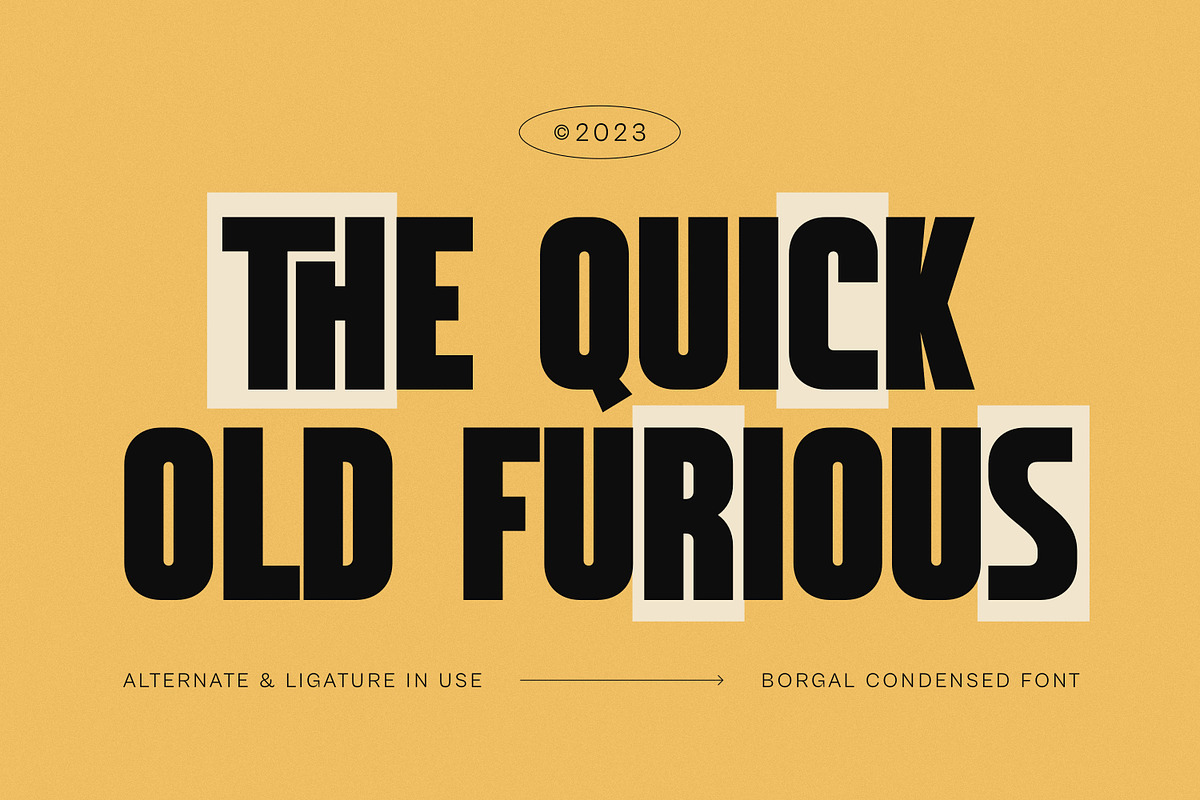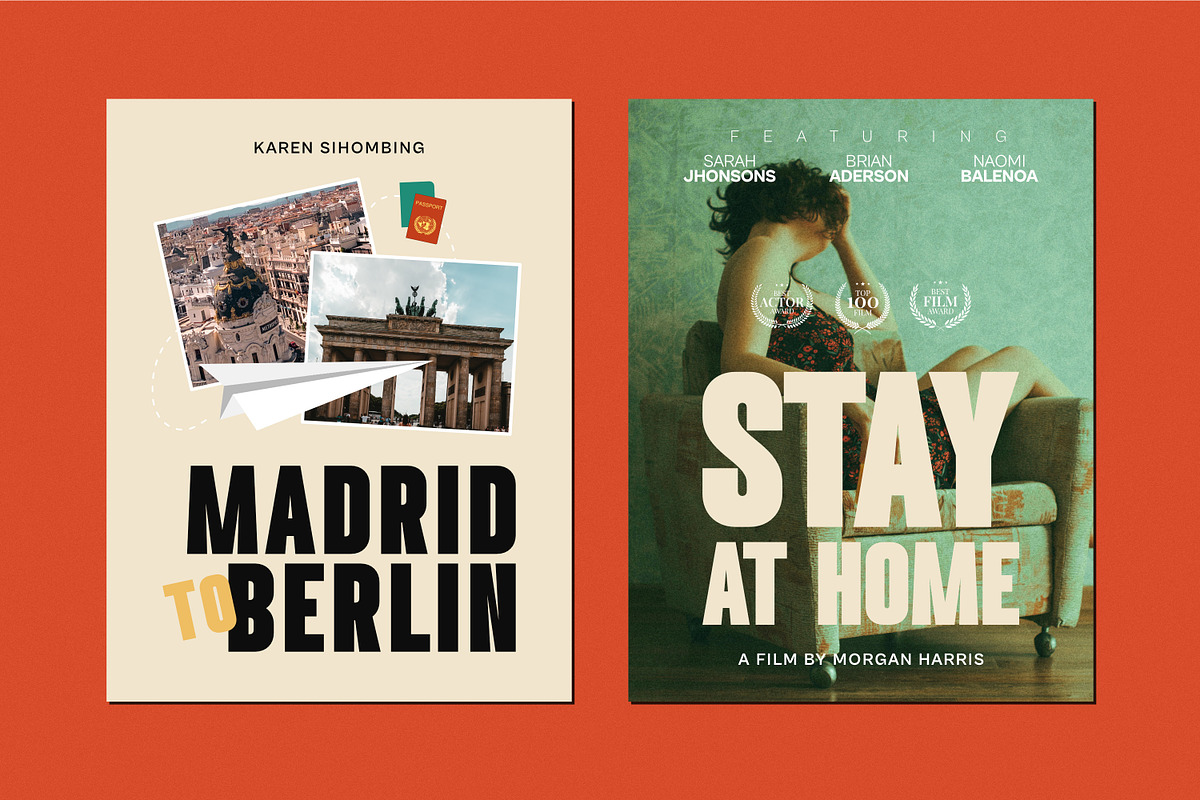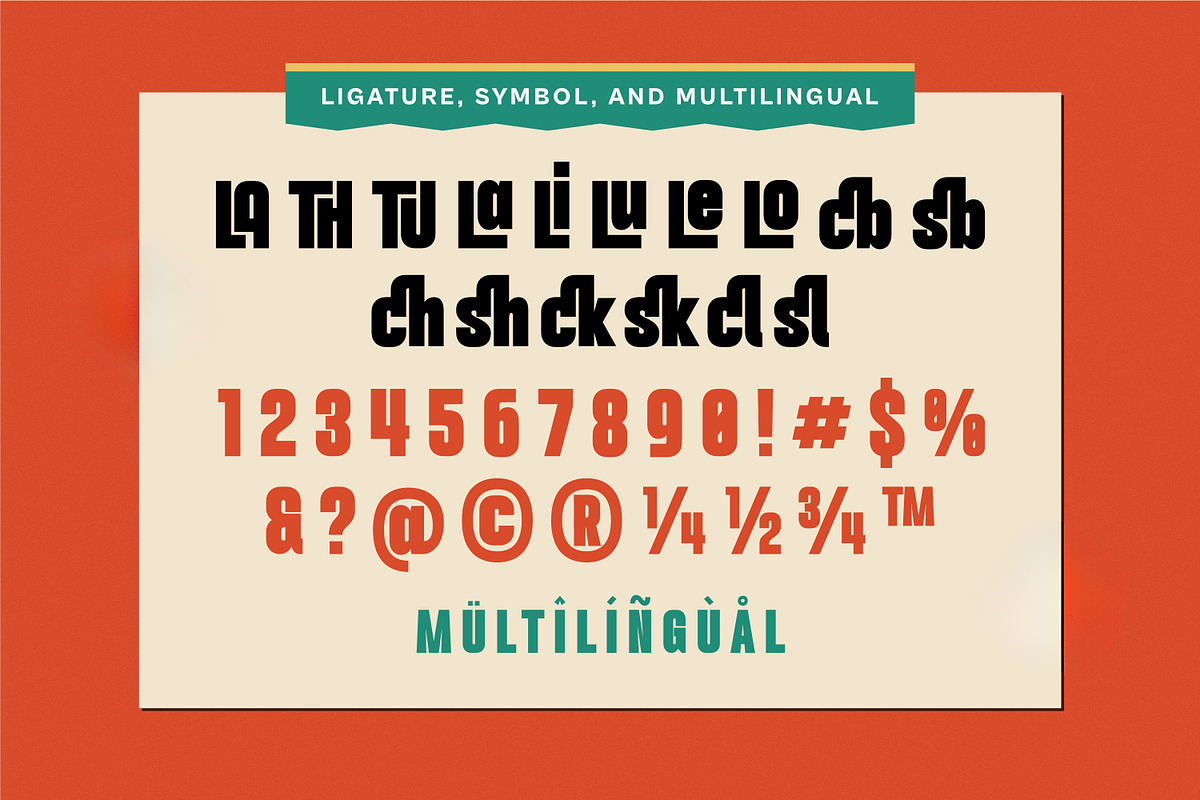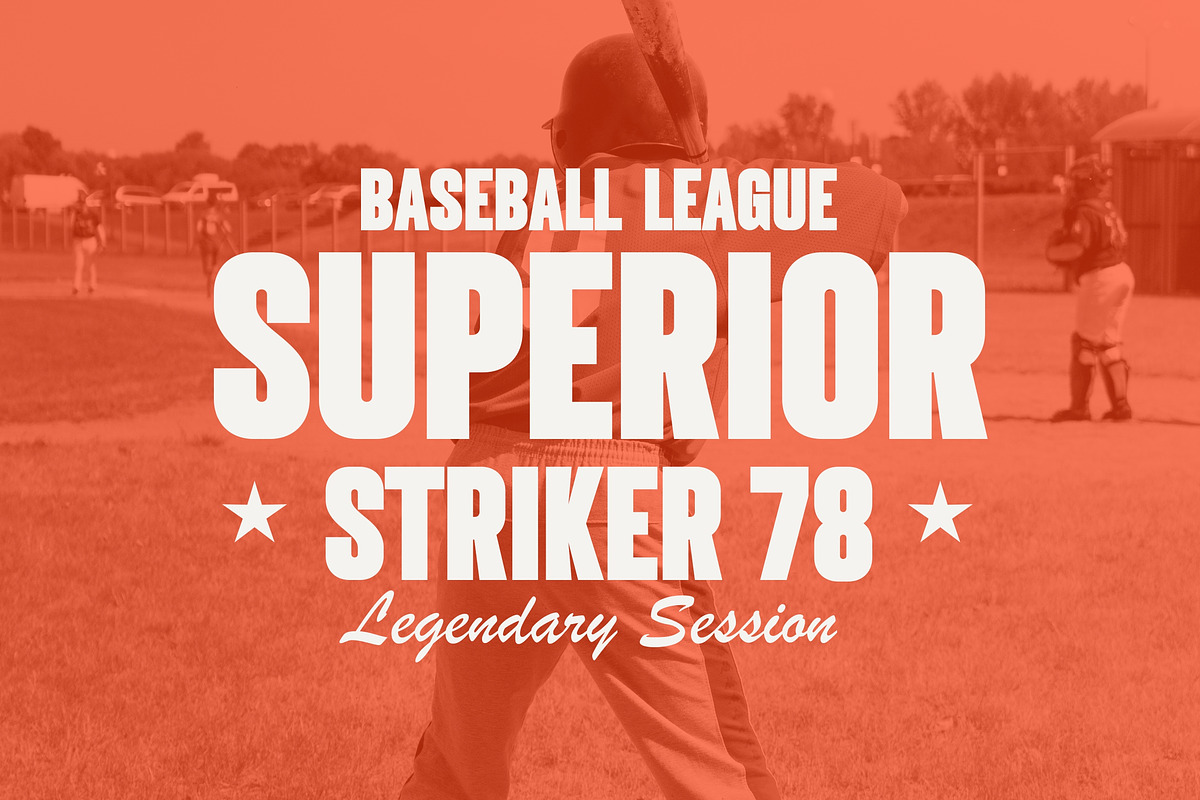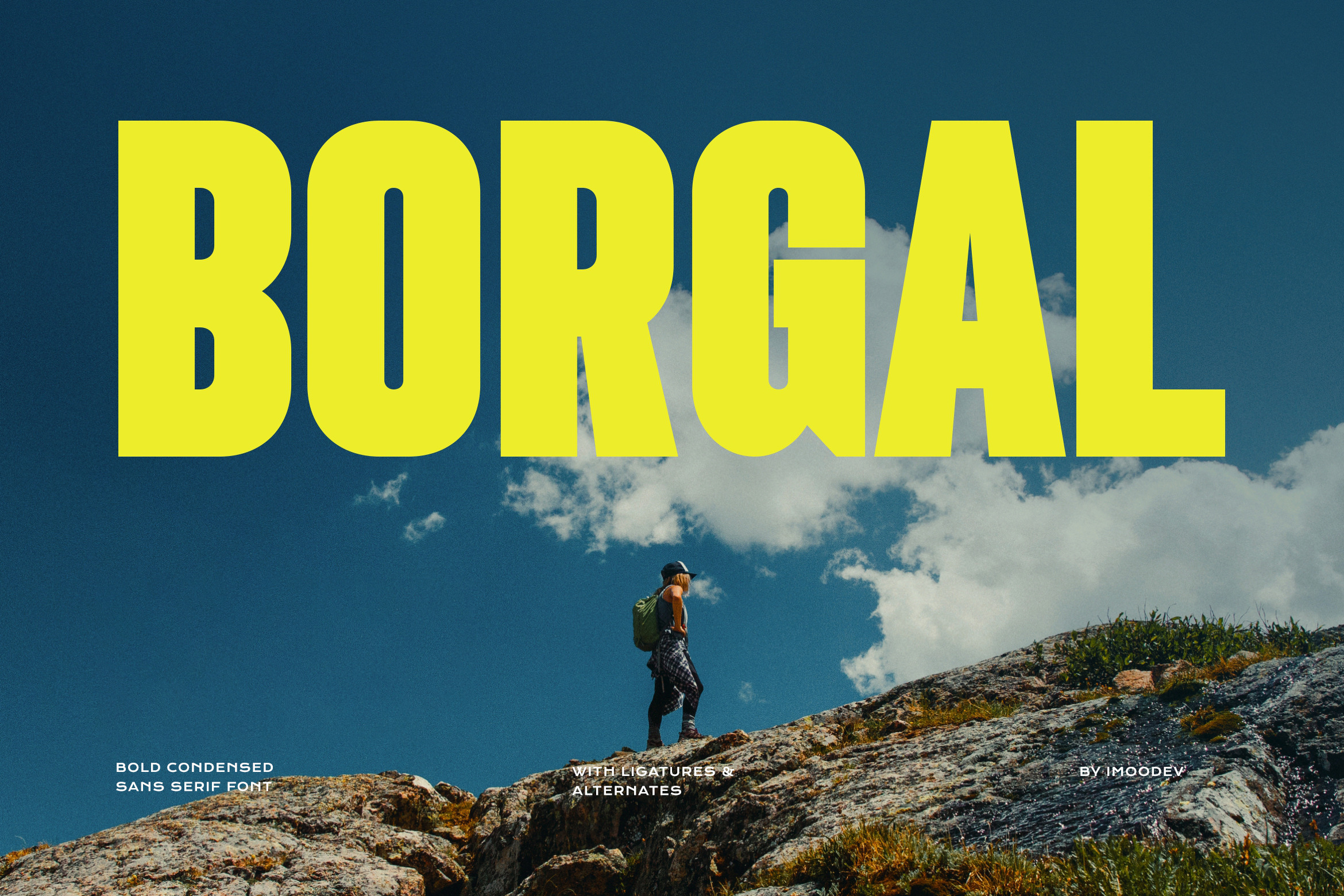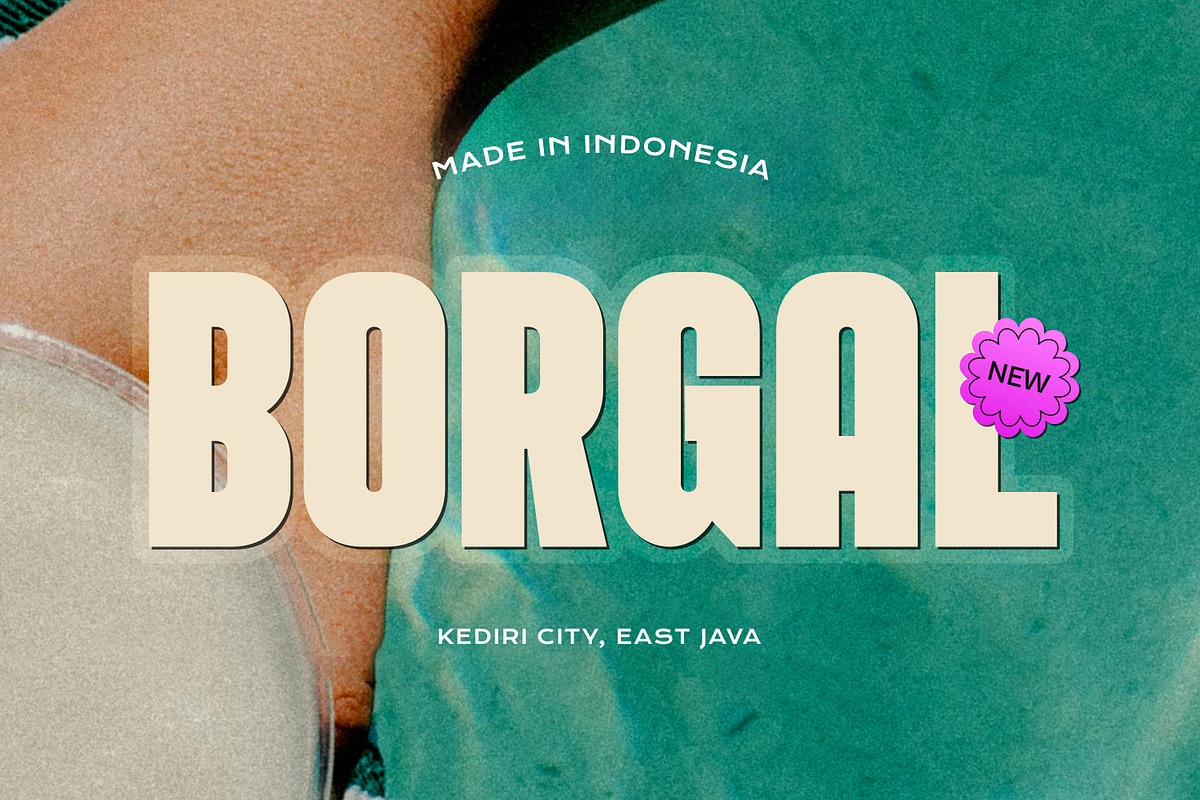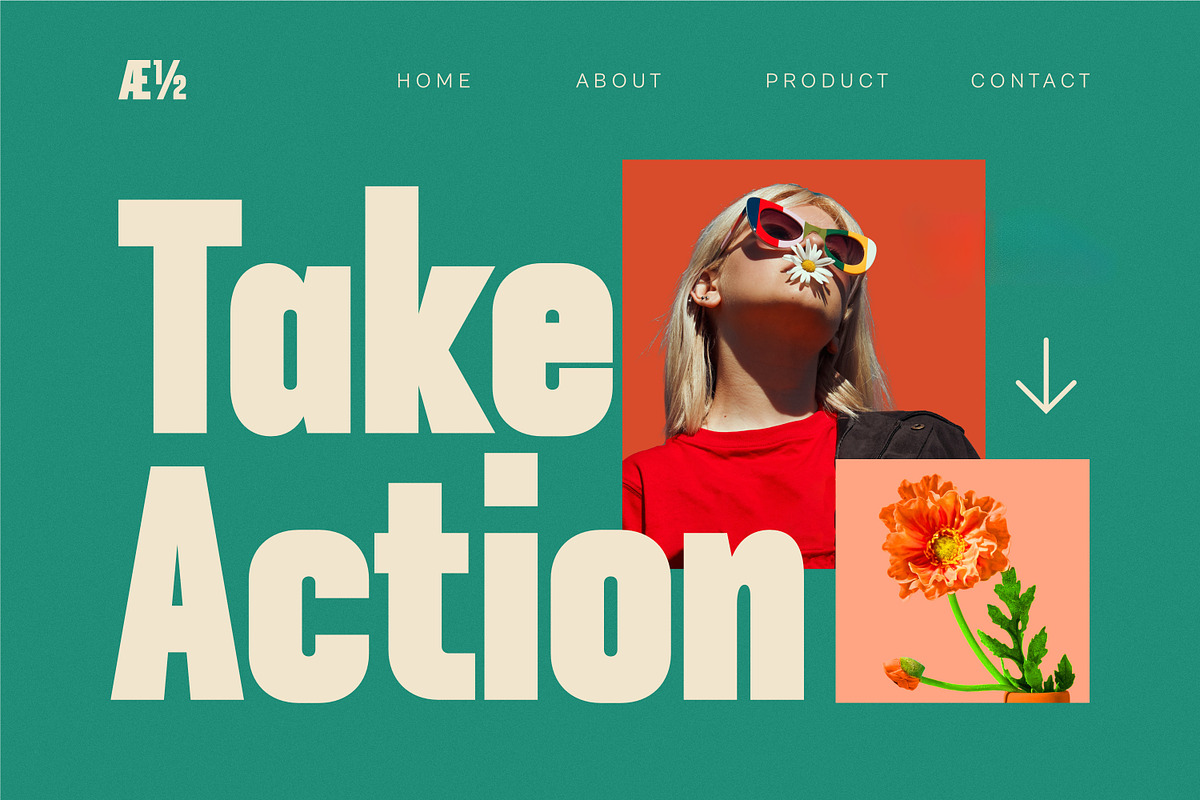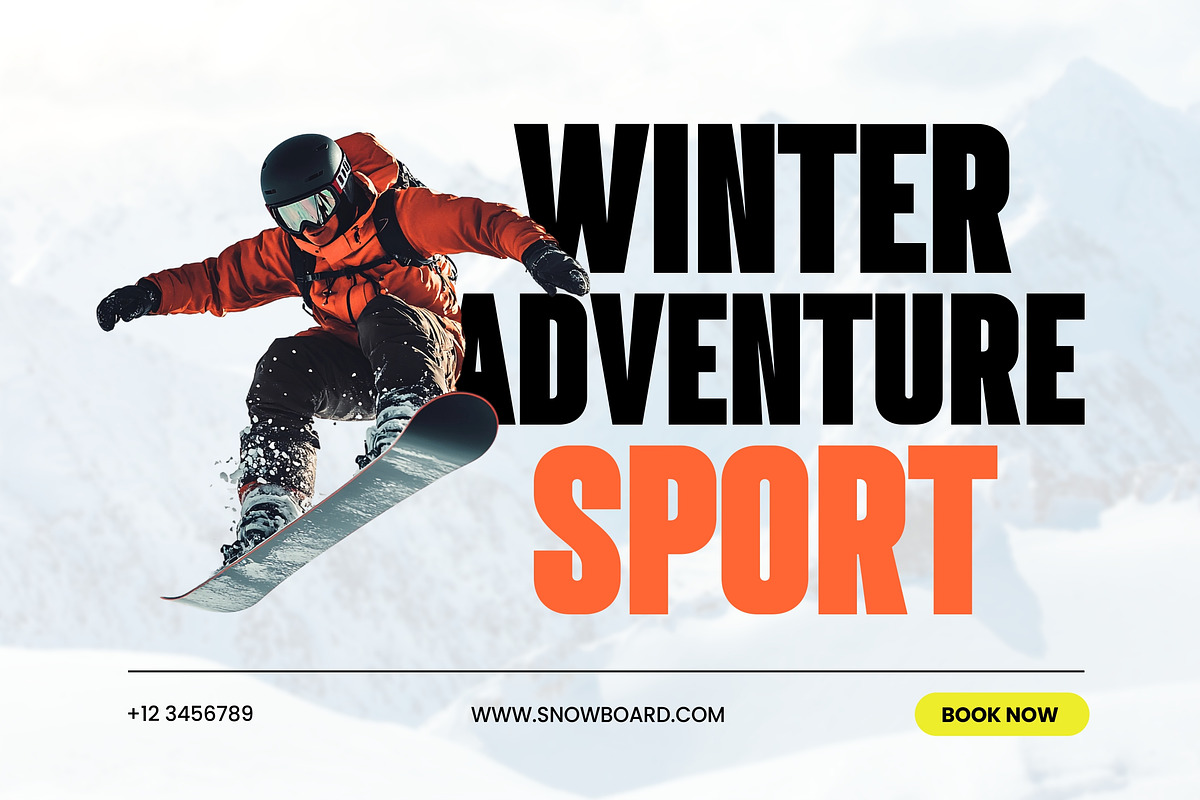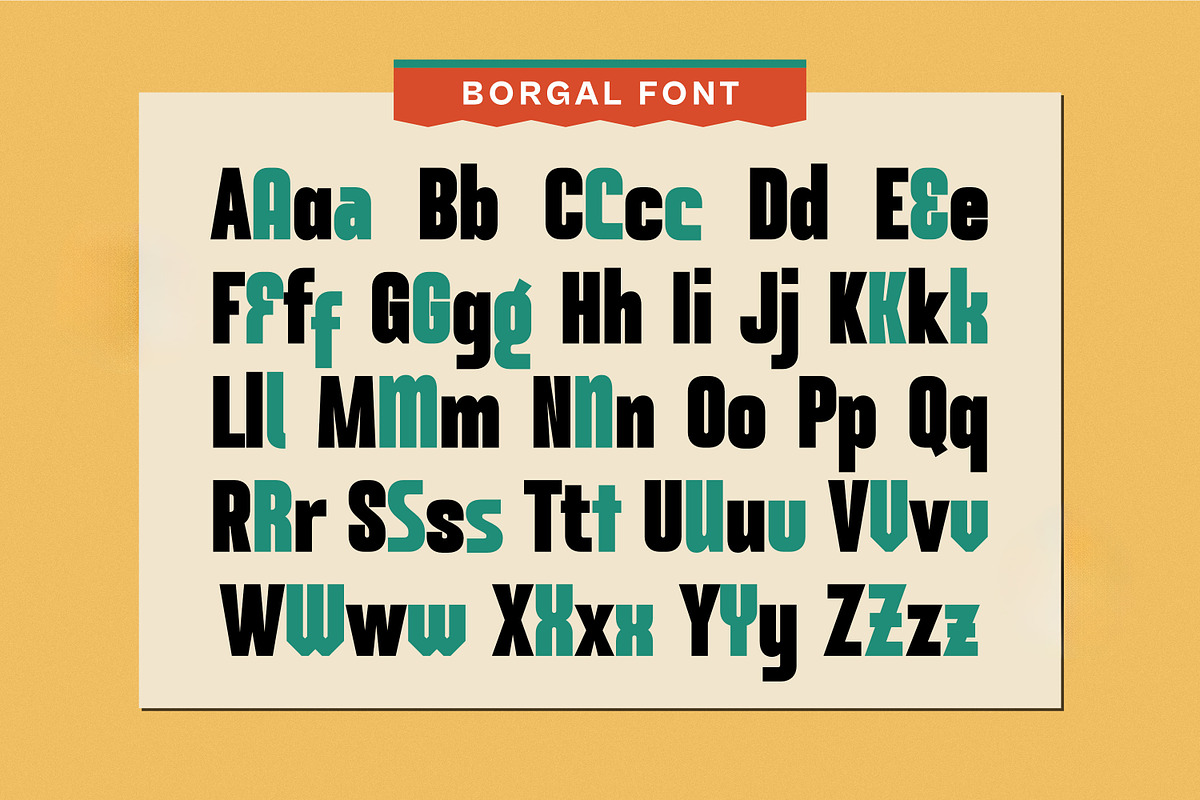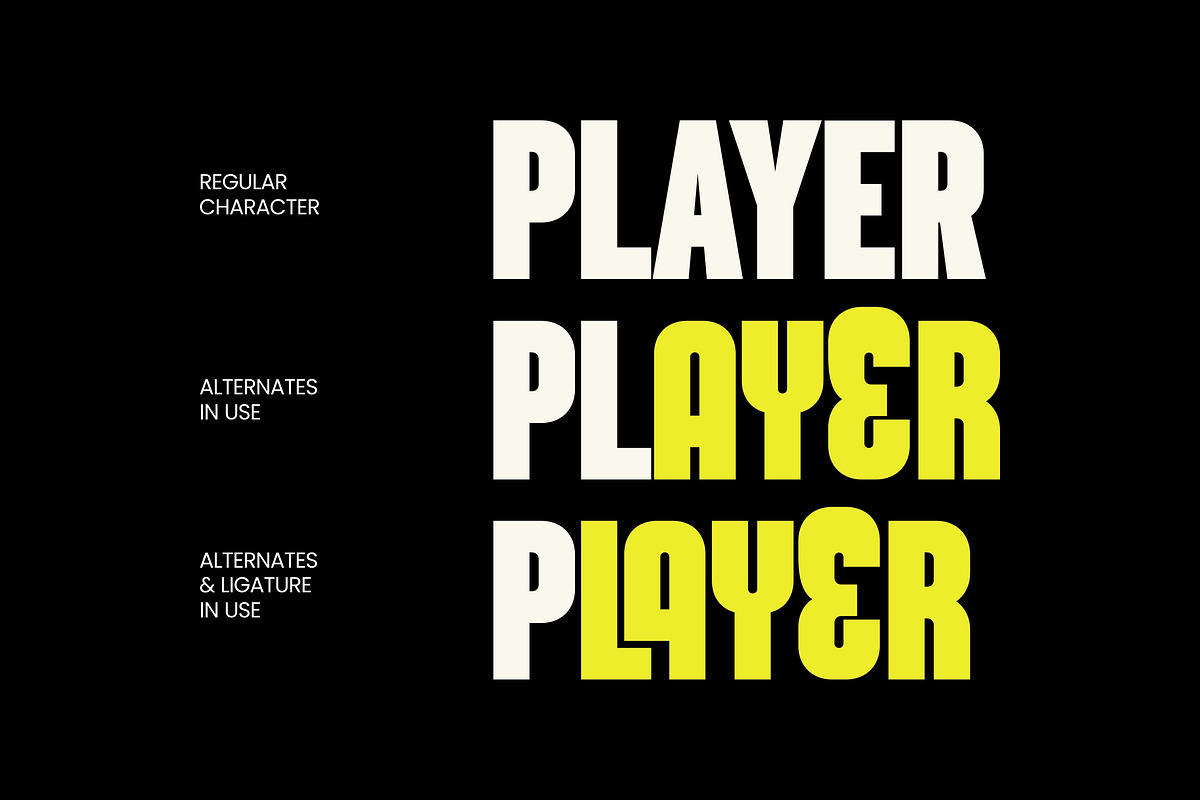
Borgal - Condensed Sans Serif Font
Borgal is a bold and condensed sans serif font that combines mid century industrial style with modern geometric sensibilities. With strong, compact letterforms and minimal contrast, Borgal is designed to maximize impact and readability at large sizes, making it the ideal choice for headlines, posters, and brands that demand attention.
Borgal undeniable weight and simplicity make it highly effective for outdoor adventures, sports, bold titles, sleek logos, posters, lifestyle branding, advertising, website hero, merchandise, and more
- Uppercase and Lowecase Characters.
- Numerals and Punctuations.
- Alternates and Ligatures.
- Multilingual Support.